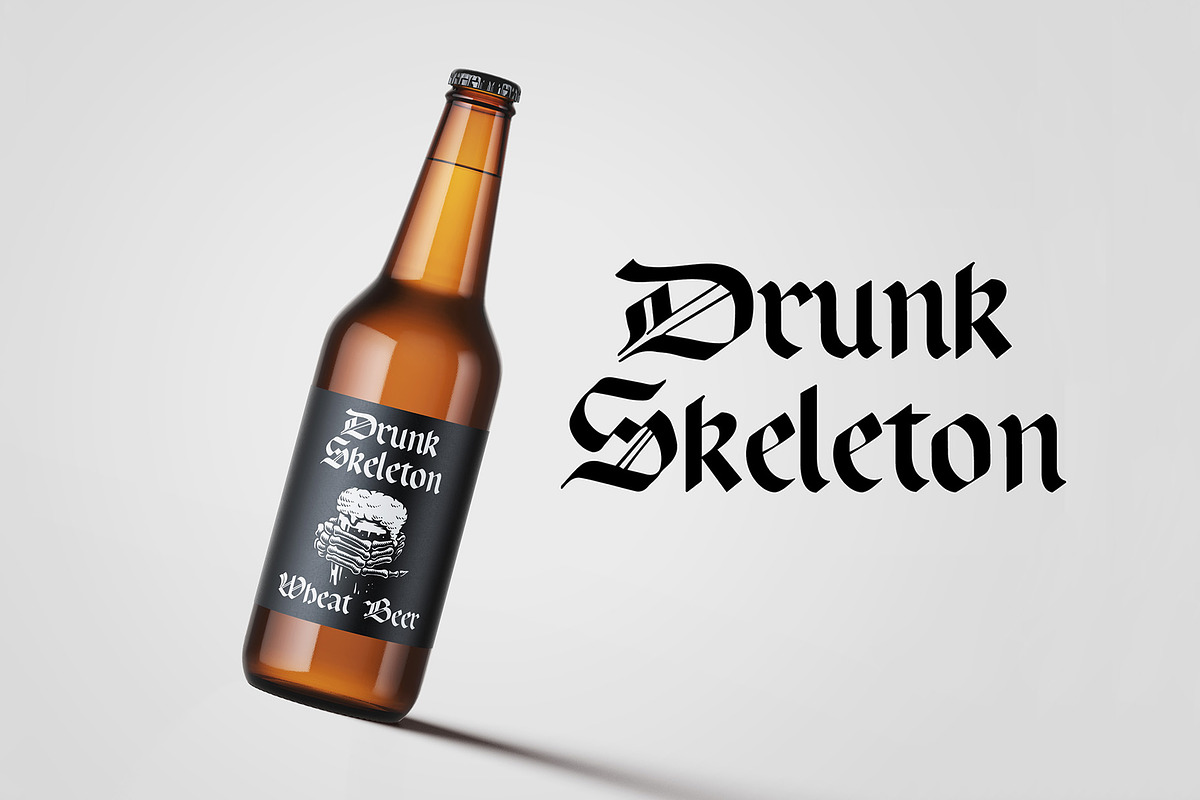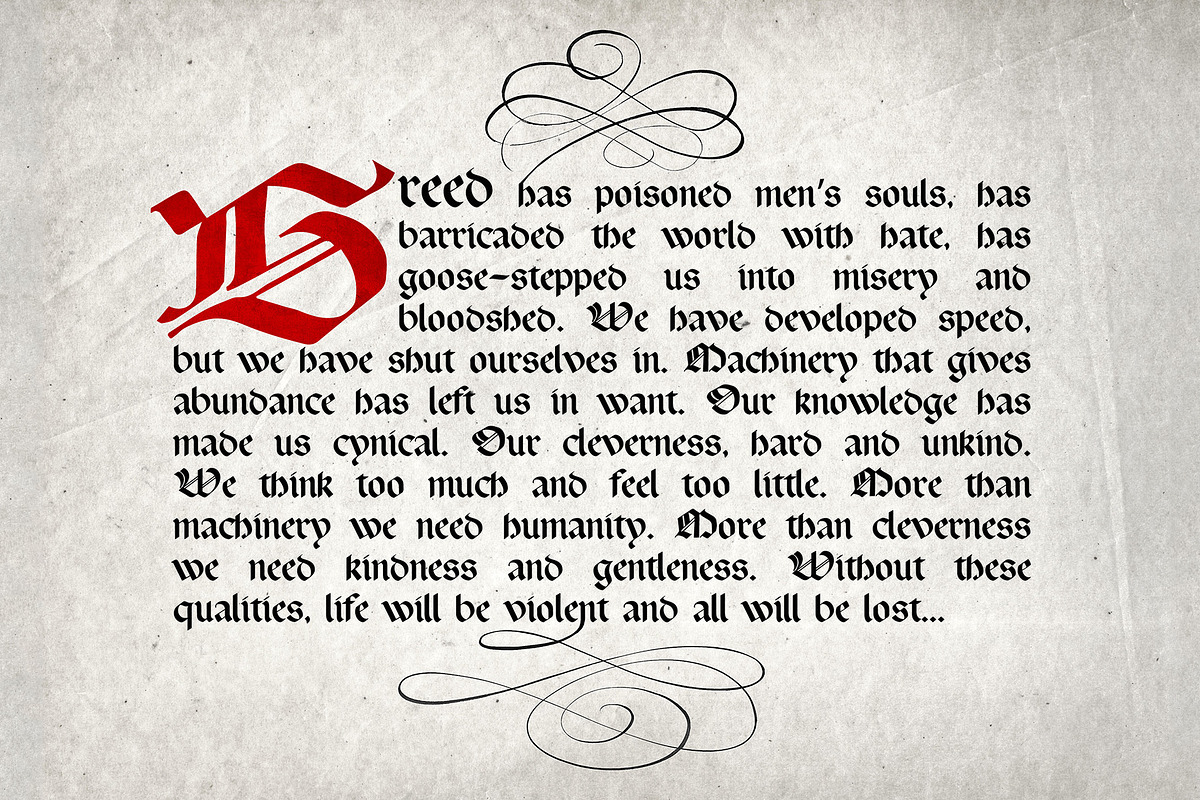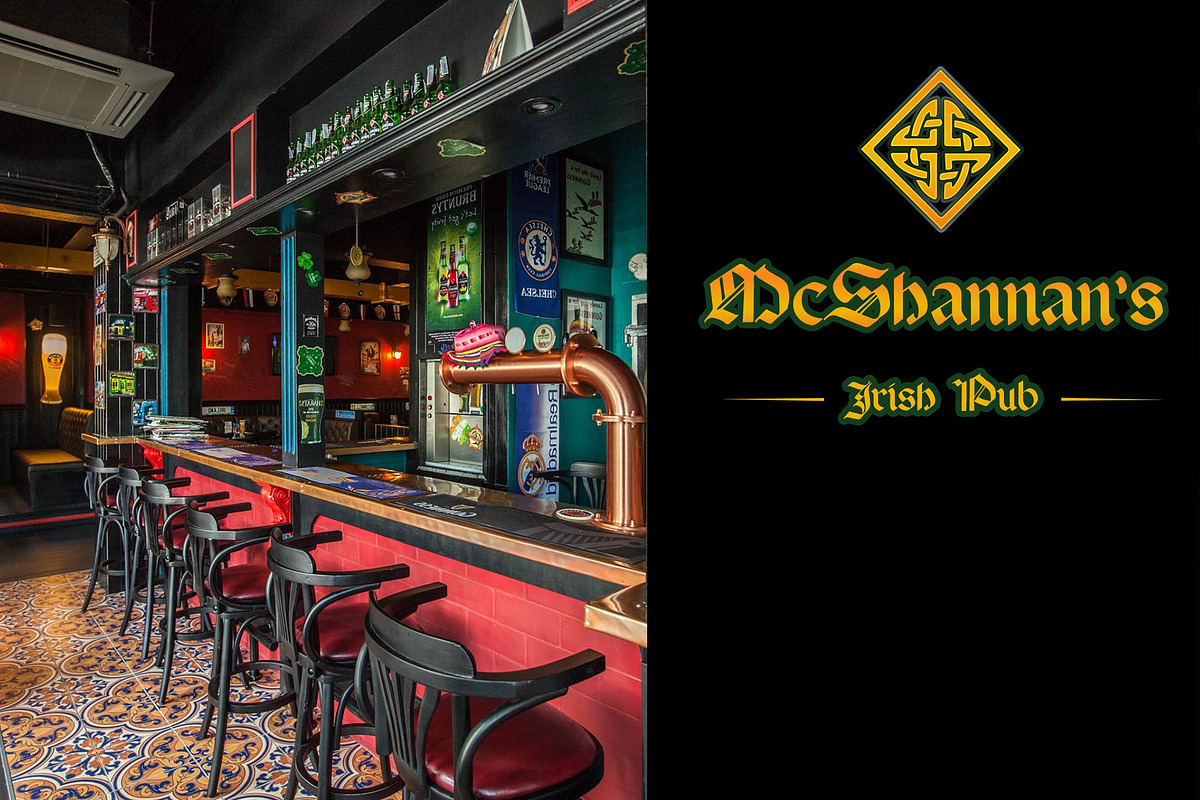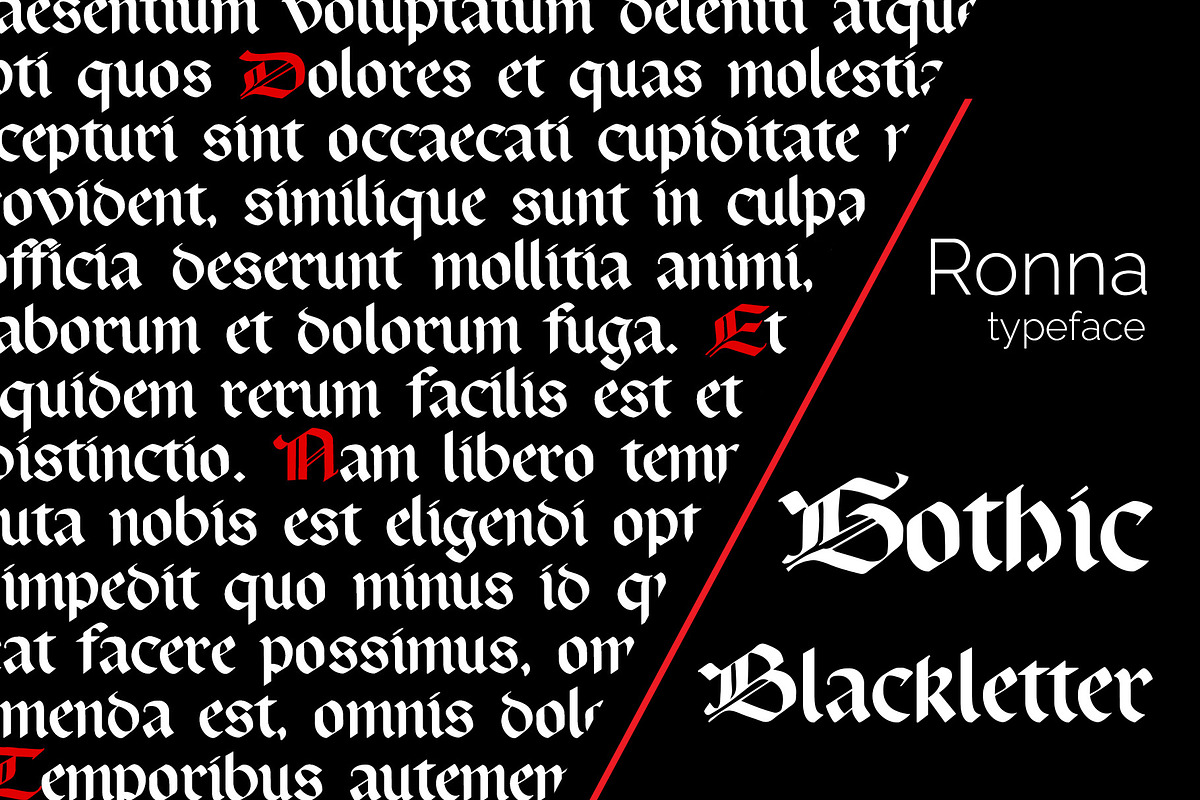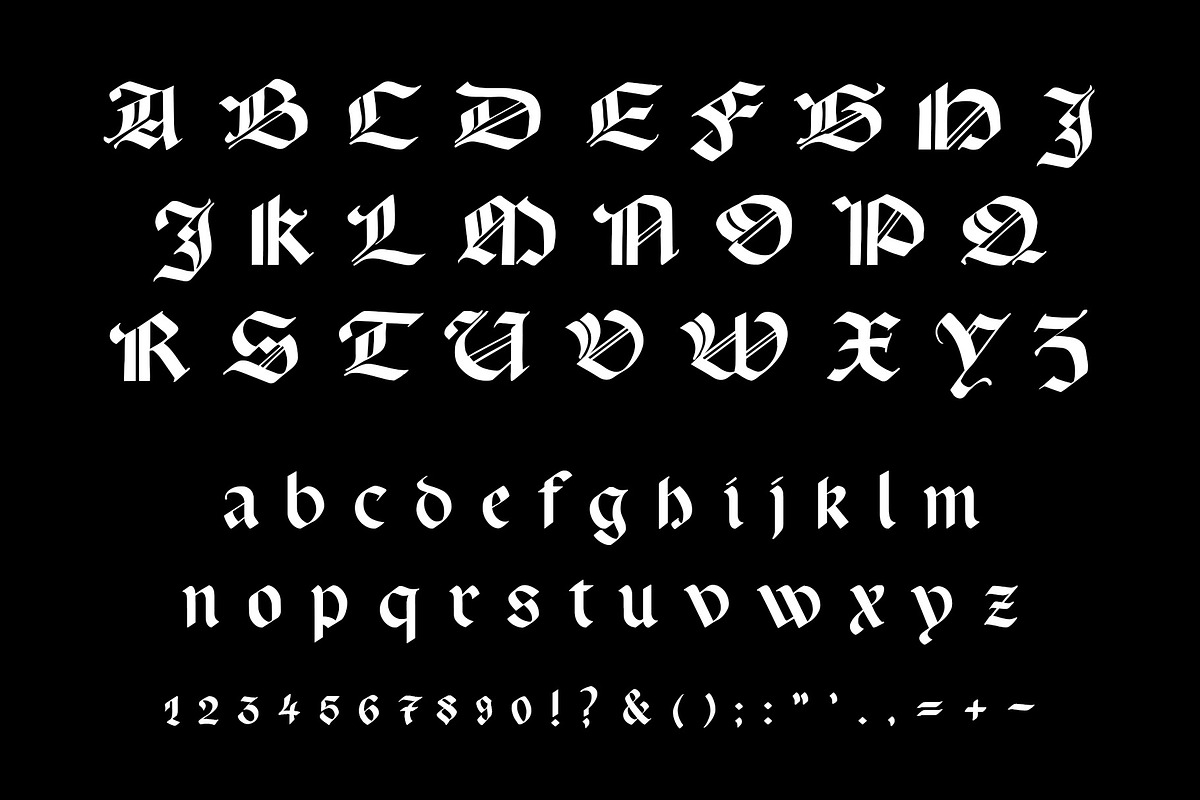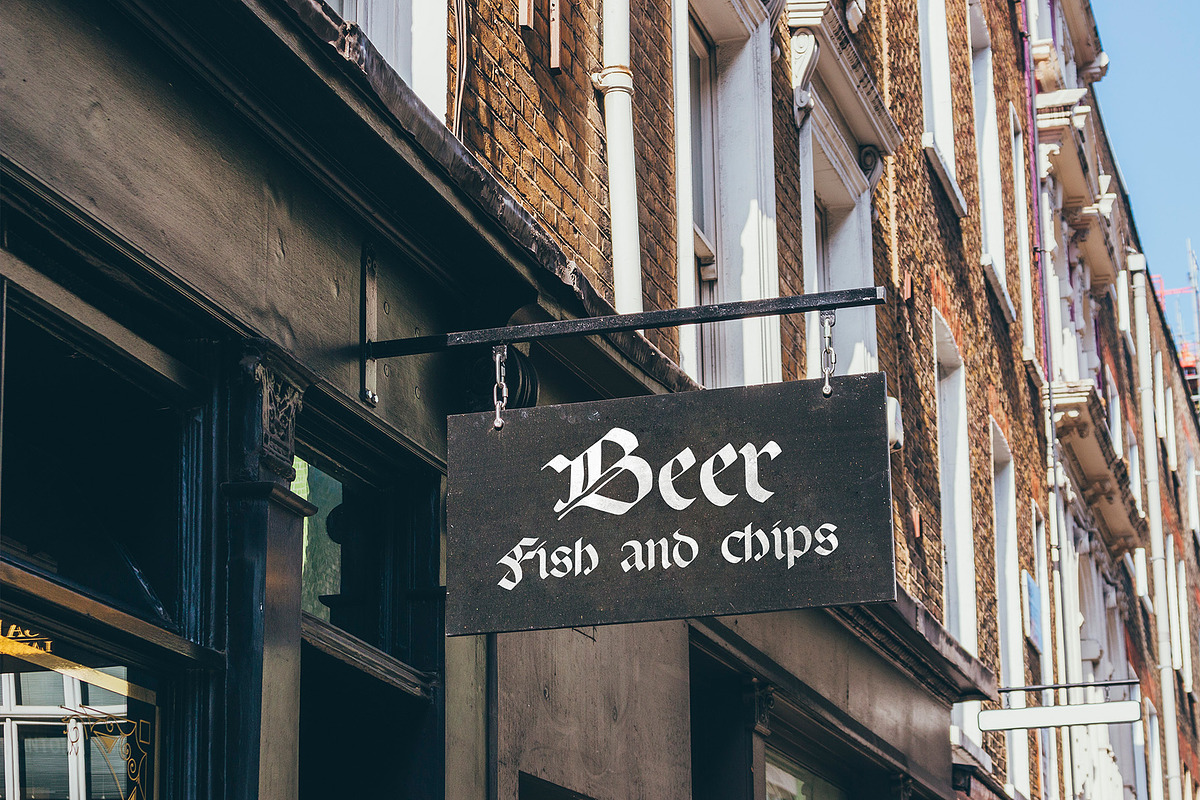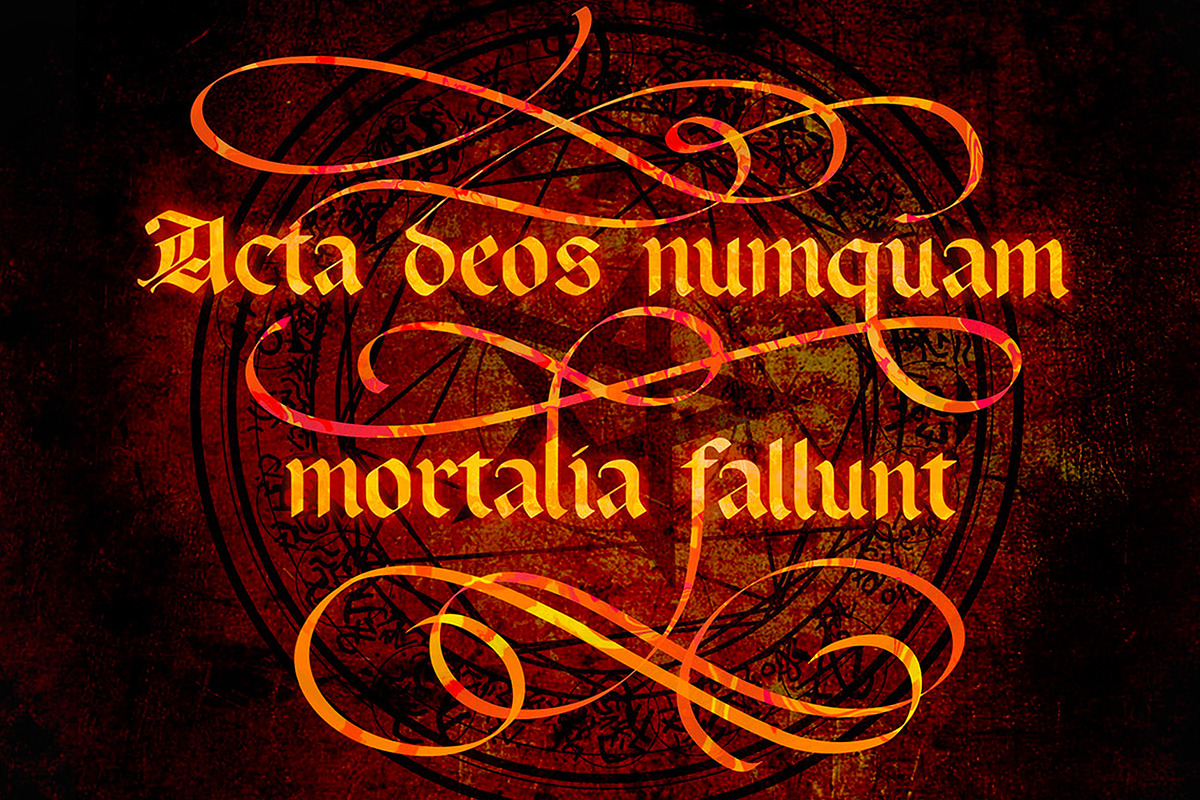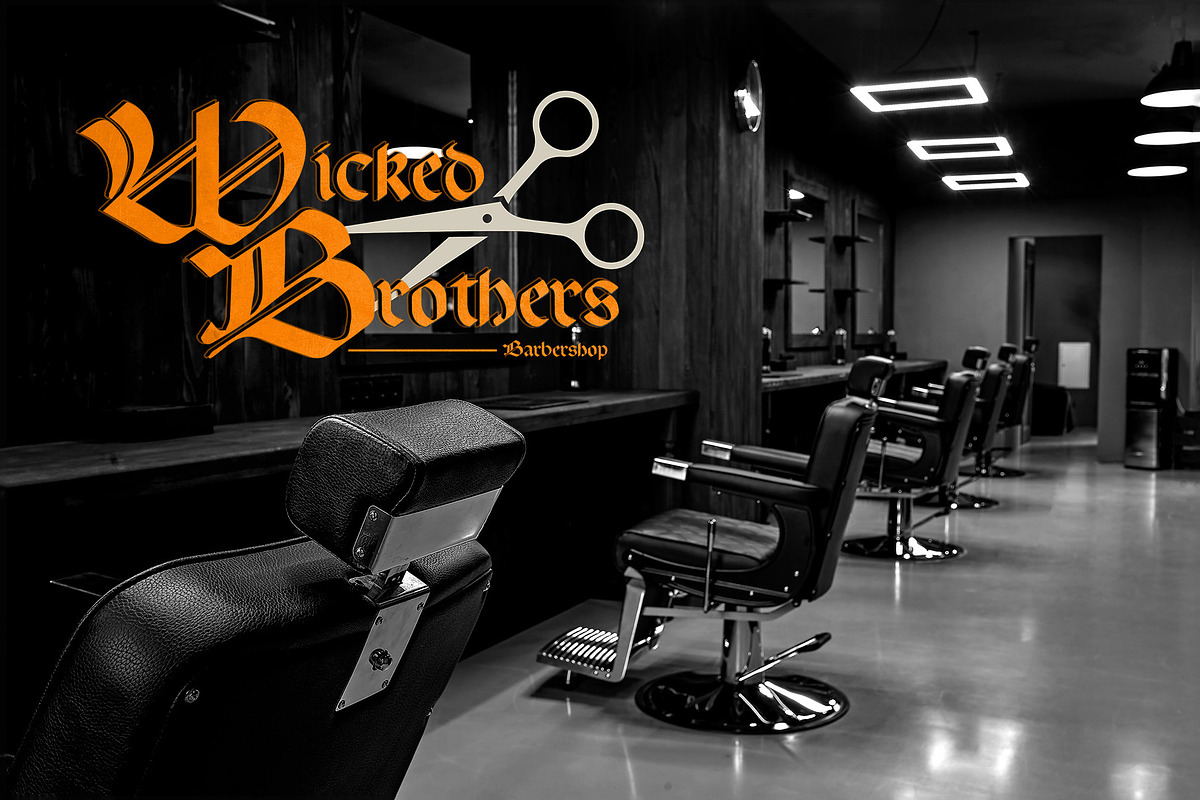
Blackletter Gothic Font Ronna
Blackletter Gothic scripts fascinate me as a great achievement of the Medieval culture.
As a calligrapher, I spent years gathering books and manuscripts to learn about the genuine letterforms and rules of European Gothic scripts. Rotunda, a less angular and dark variation of the classic Blackletter originated in XIII century Italy. Now, I made it into a proper modern typeface — Ronna Gothic. It allows anyone to experience its Gothic heritage while still keeping the authentic look.
This is completely unique, handmade Rotunda Gorhic font the way it's supposed to look with a few additional modern elements to make it legible for contemporary viewer.
It's an ideal style to make tattoo sketches, logotypes, street signs and book covers. Ronna easy to read yet it still preserves that dark Blackletter feel to it.